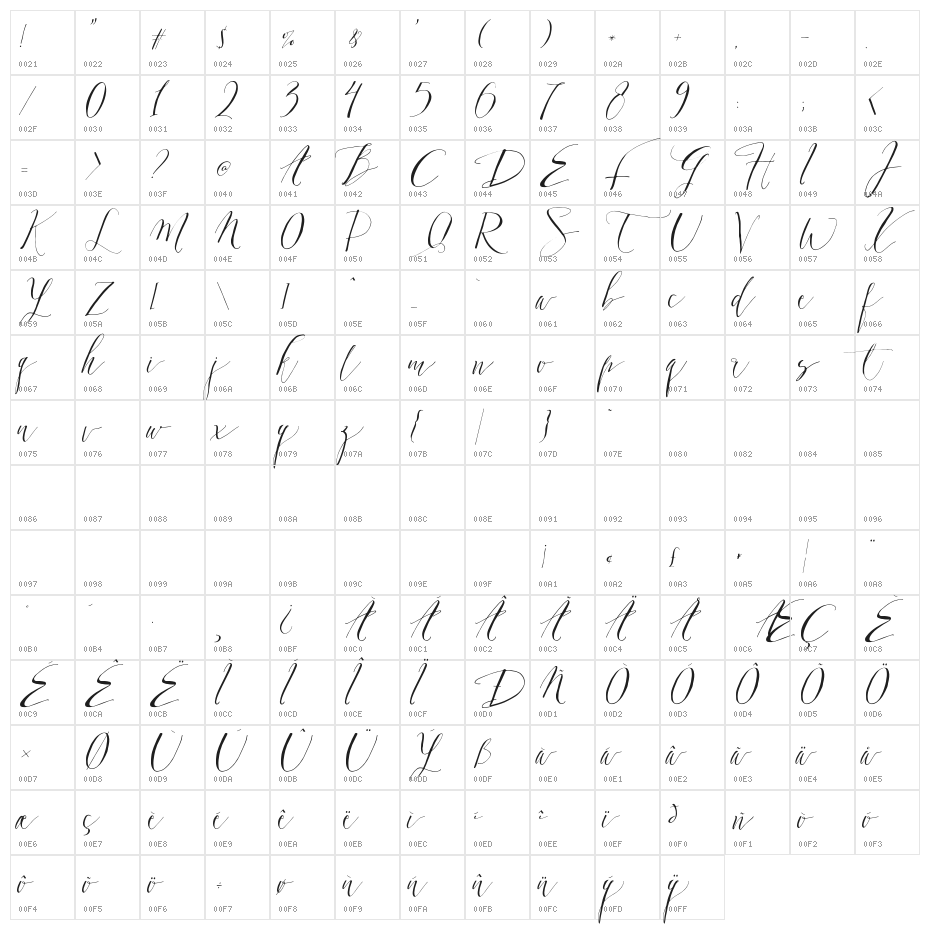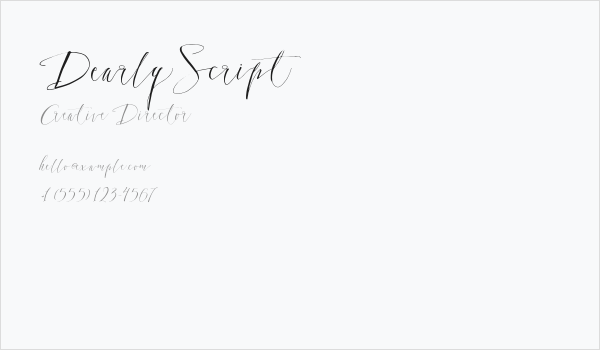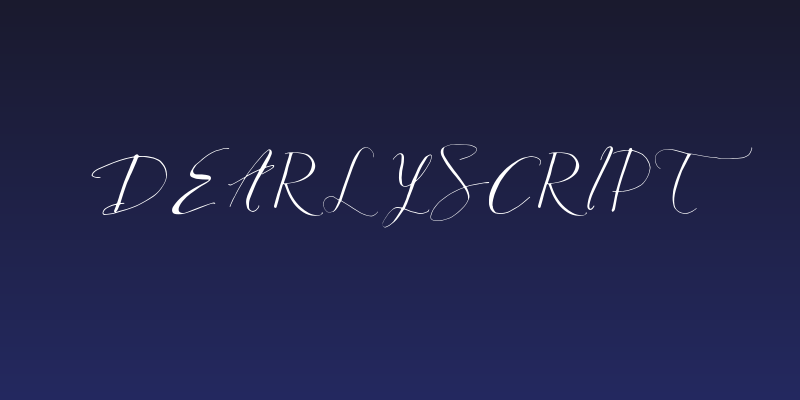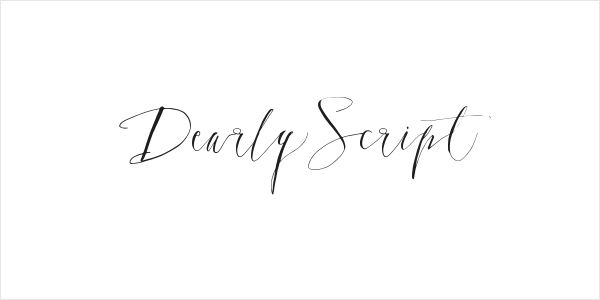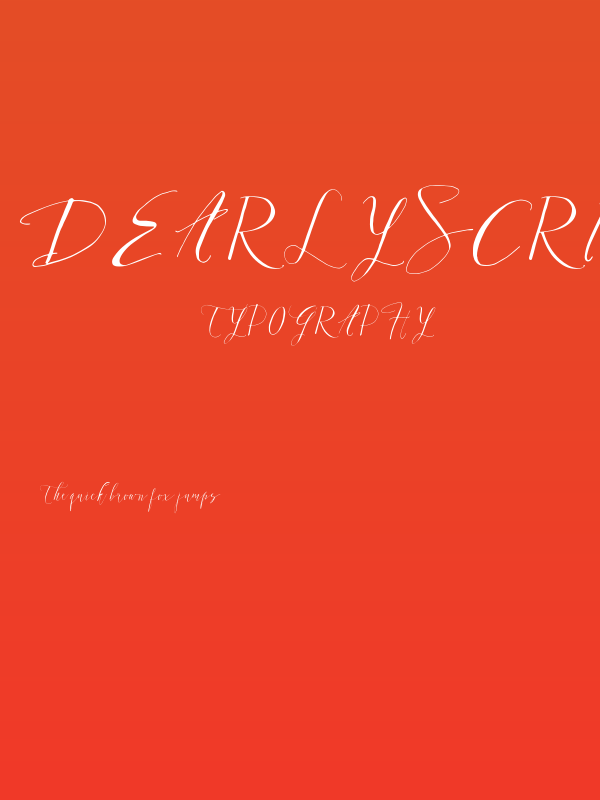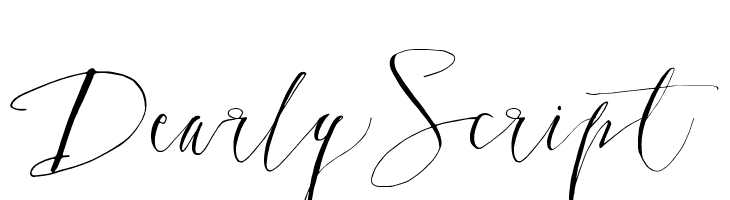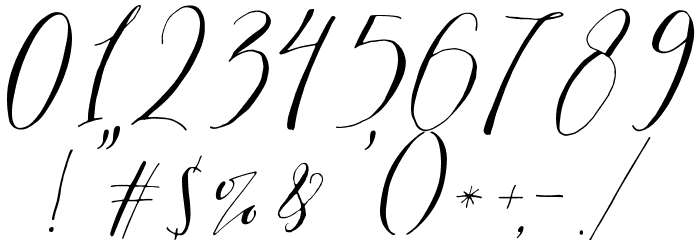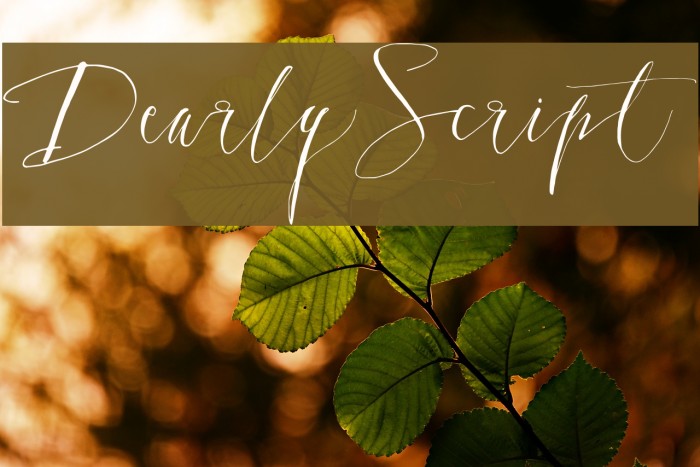
DearlyScript Font
DearlyScript Description
This elegant script font features a flowing, cursive style with a distinctly handwritten appearance. The characters are gracefully connected, showcasing a fluid motion that mimics natural handwriting. The uppercase letters are slightly more ornate, with flourishes that add a touch of sophistication. The lowercase letters maintain a consistent style, ensuring readability while preserving the artistic flair. The numerals and special characters are designed to complement the overall aesthetic, making this font versatile for various applications. The thin strokes and delicate curves give it a refined and stylish look, perfect for adding a personal touch to any design.
| Overall Style | Elegant, Handwritten |
| Use Case | Logos, Invitations, Decorative text |
| Proposed Projects | Ideal for wedding invitations, greeting cards, personal branding, and elegant packaging designs. |